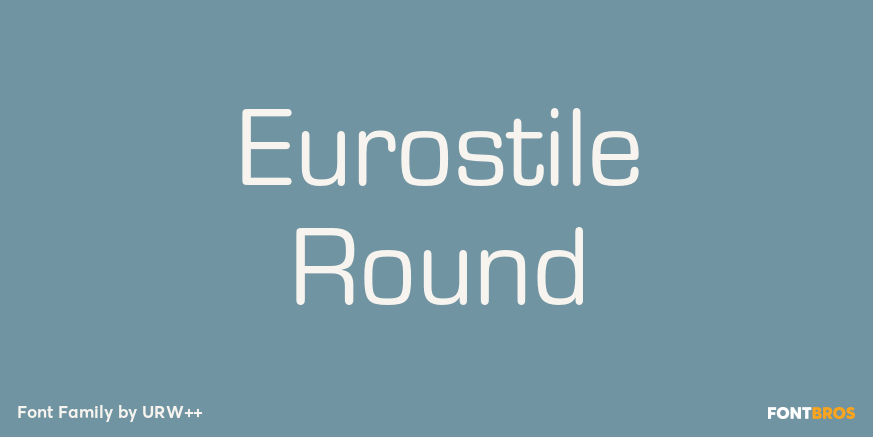
Eurostile Round
About Eurostile Round
Eurostile, created in 1962 by Aldo Novarese for the Nebbiolo type foundry, is one of the most popular sans serif fonts of all, and has been for about 50 years. Originally designed as a screen font it was very popular from the beginning, even though it…